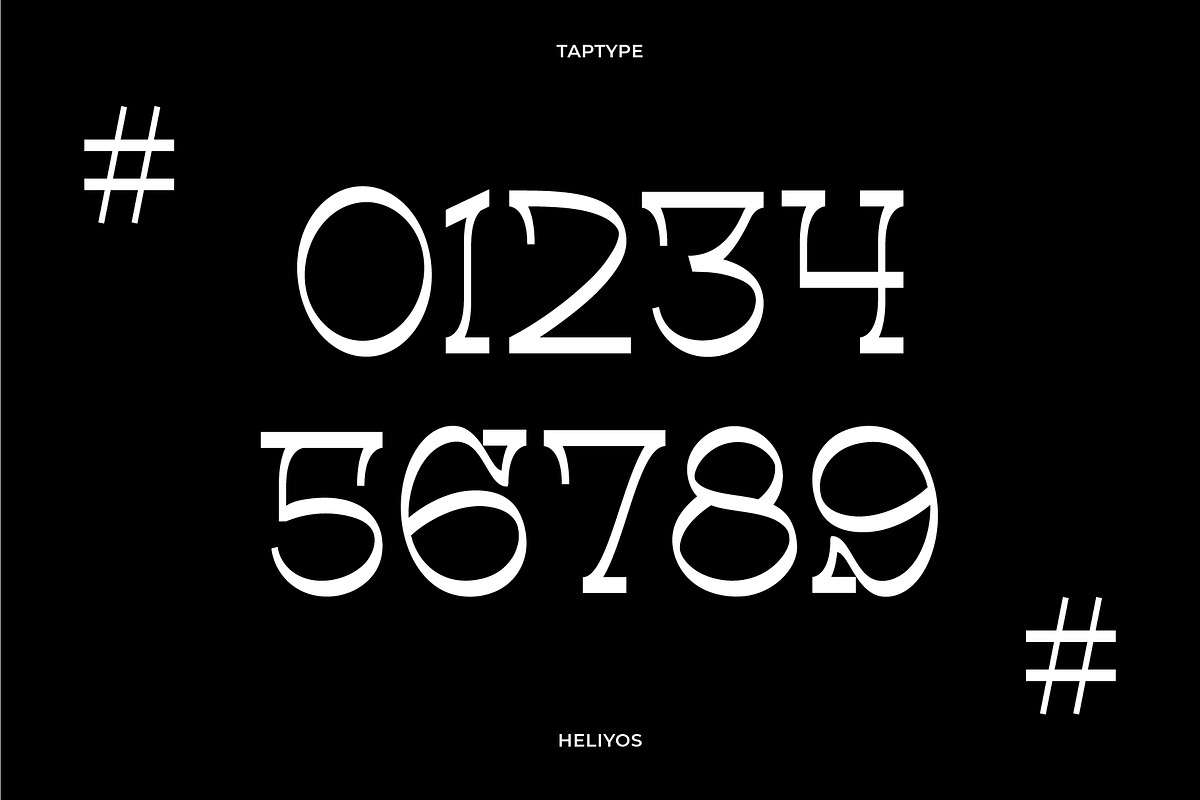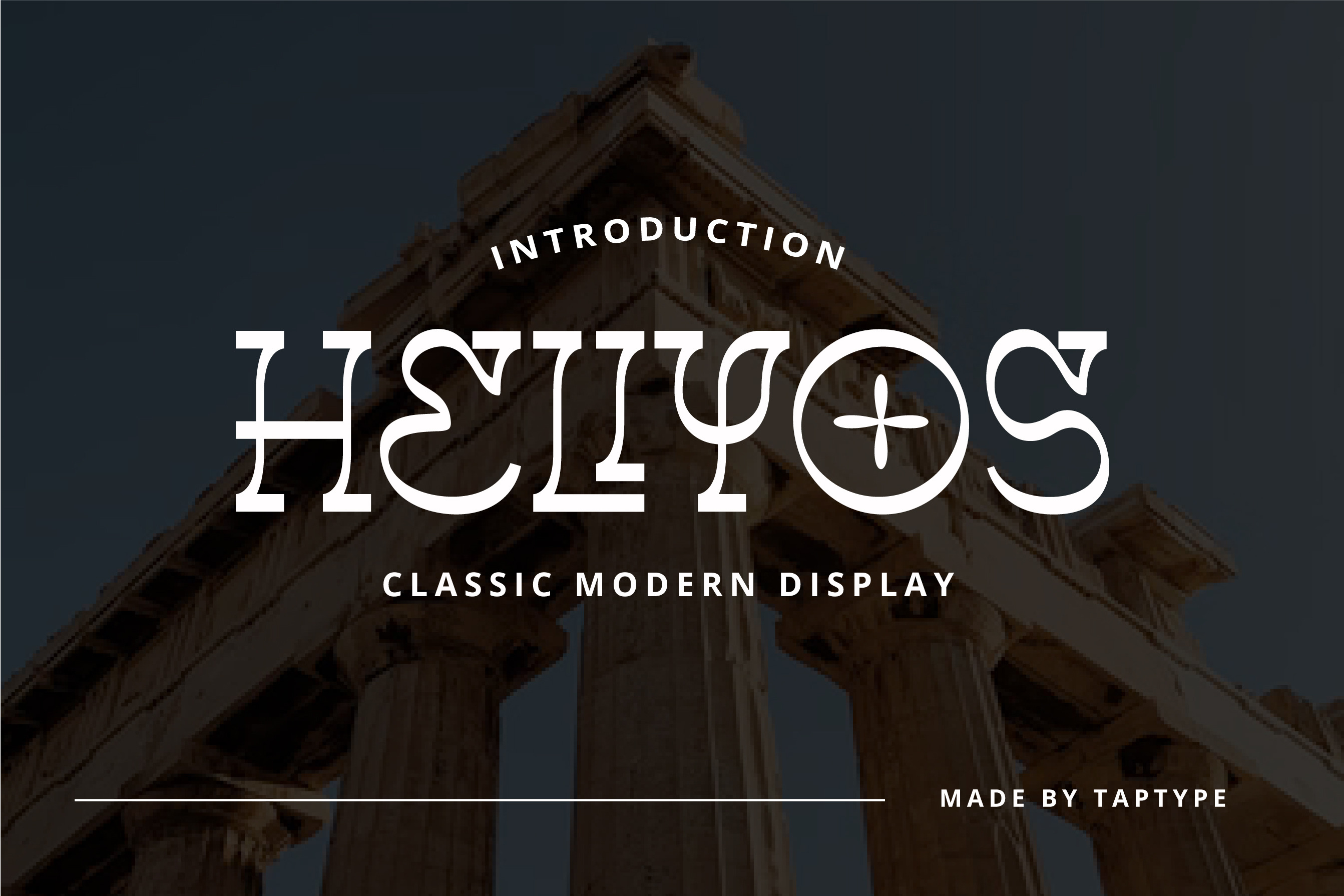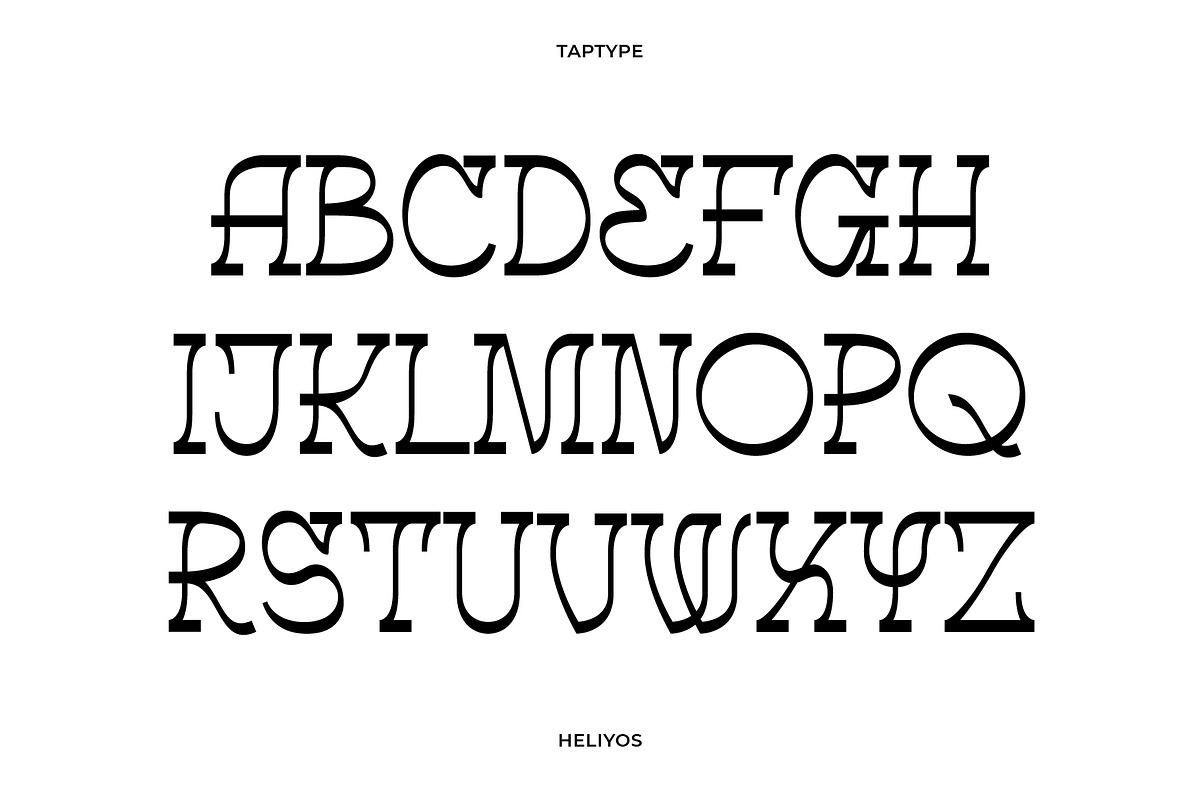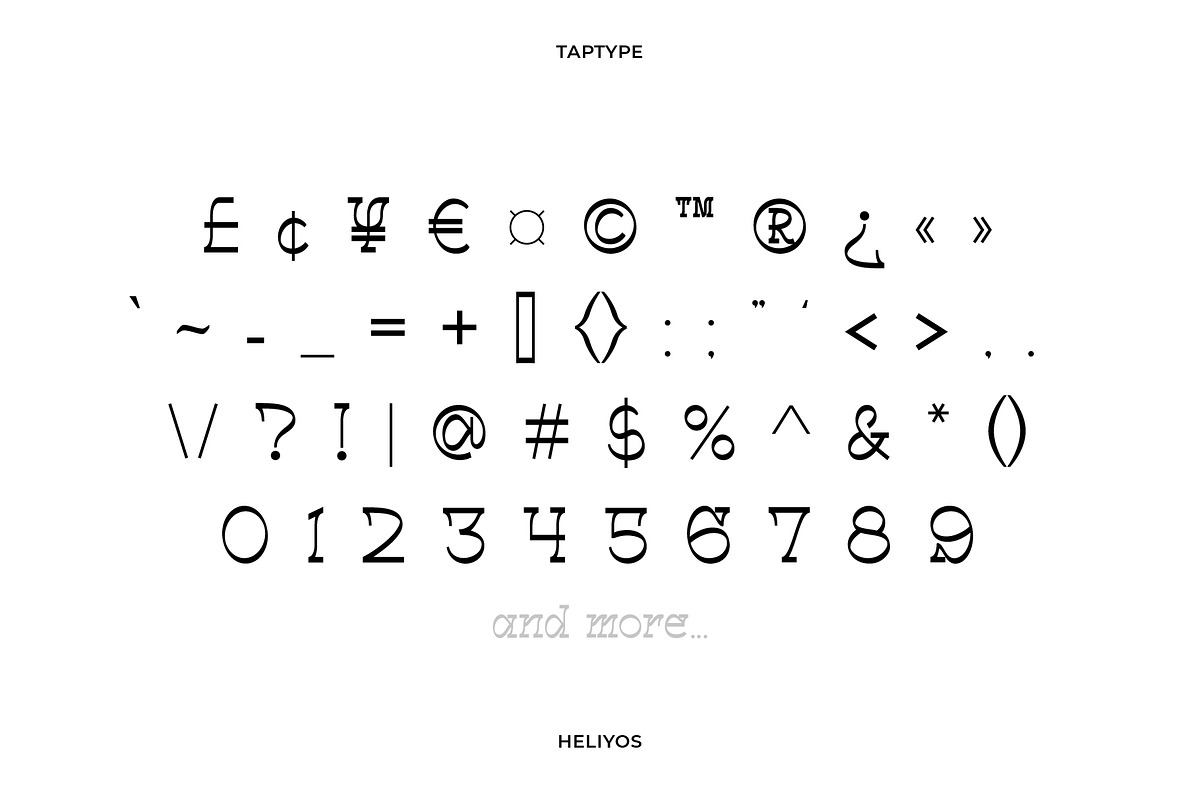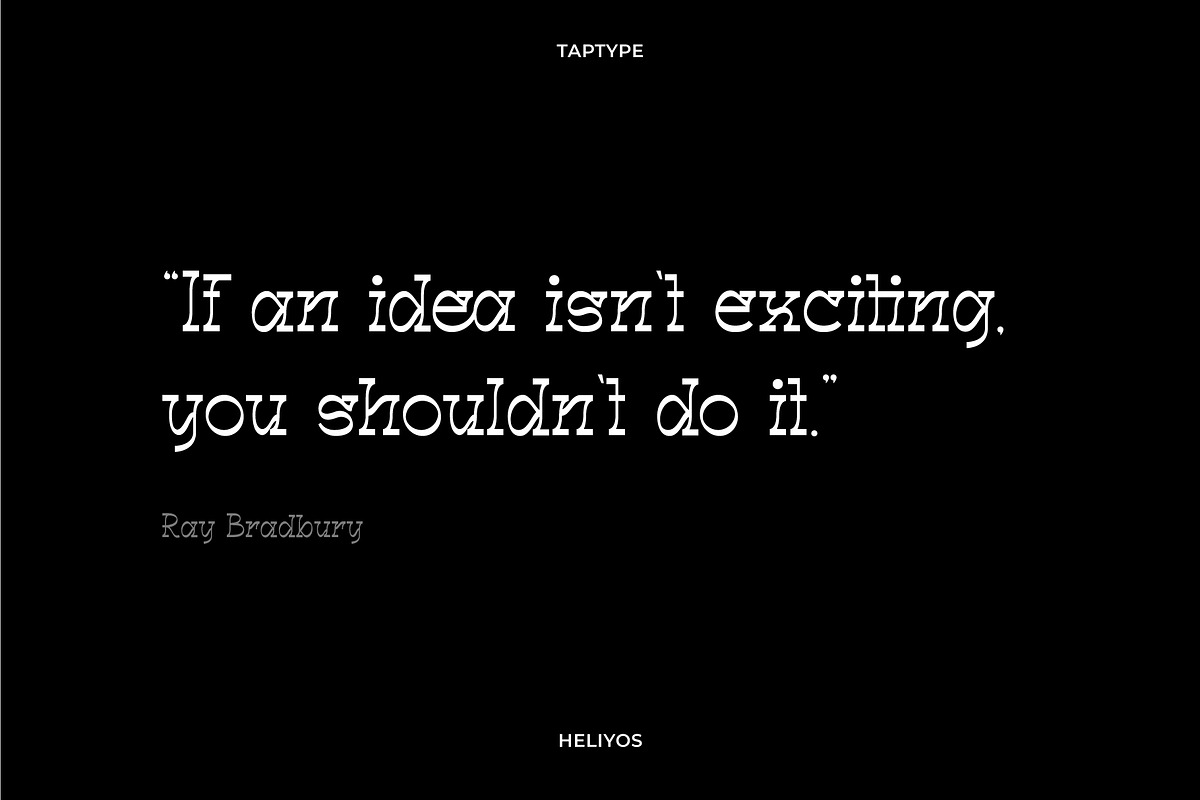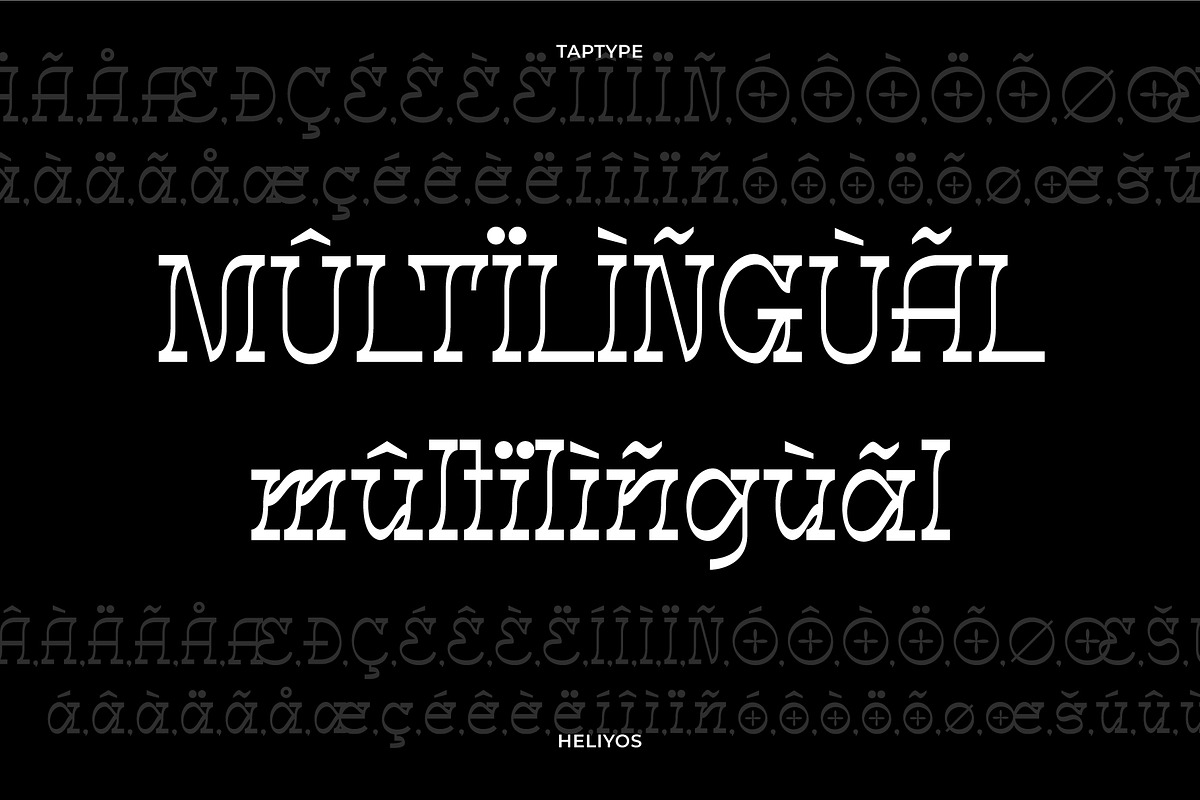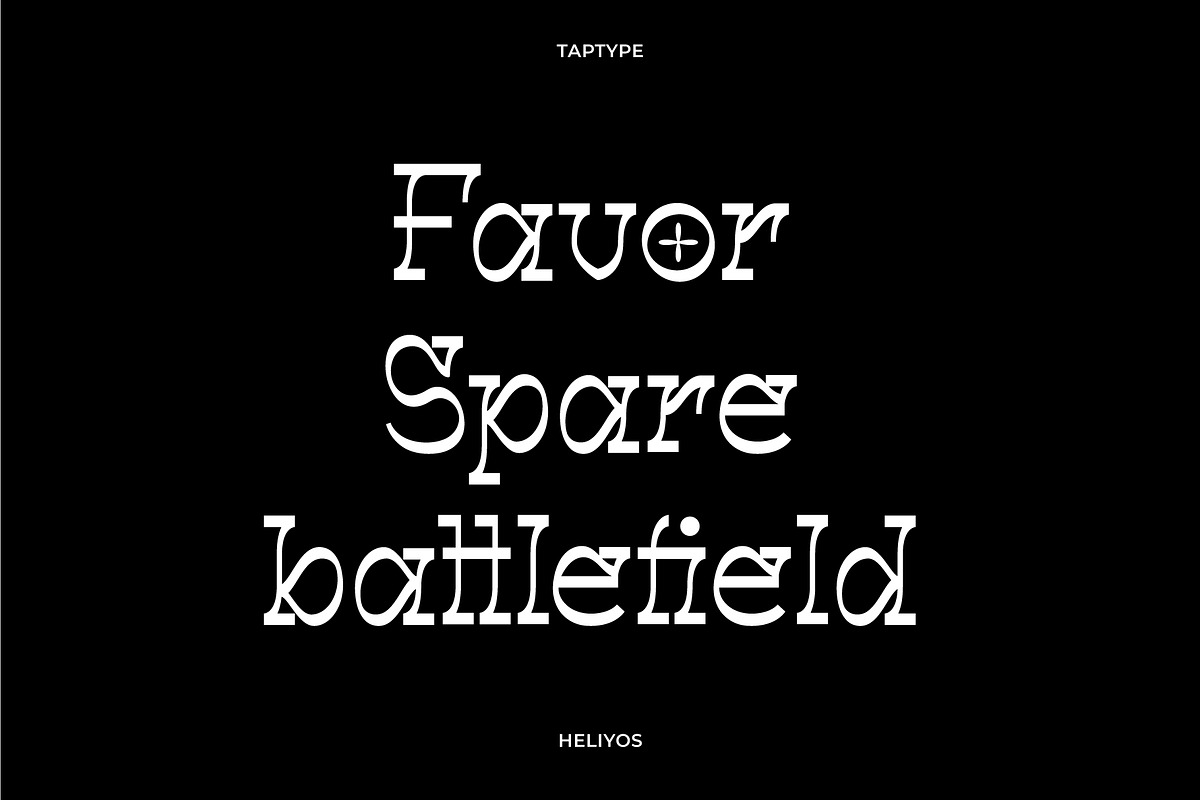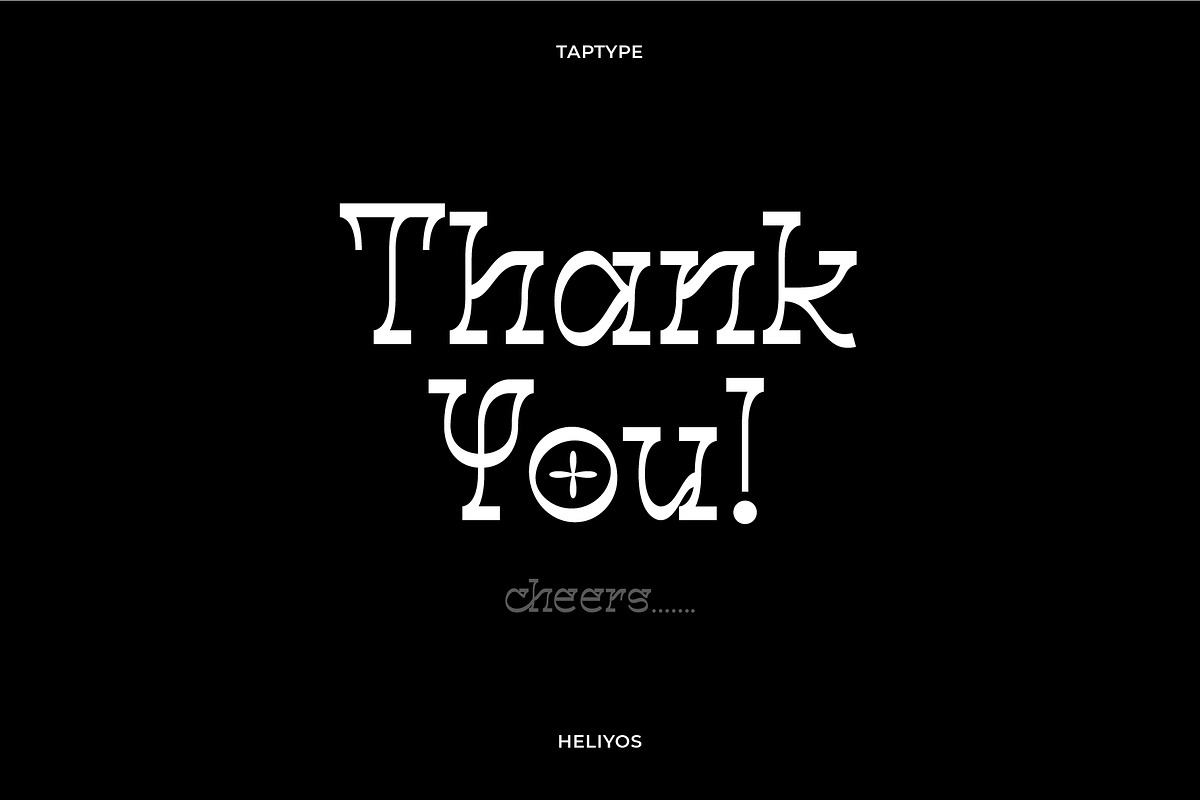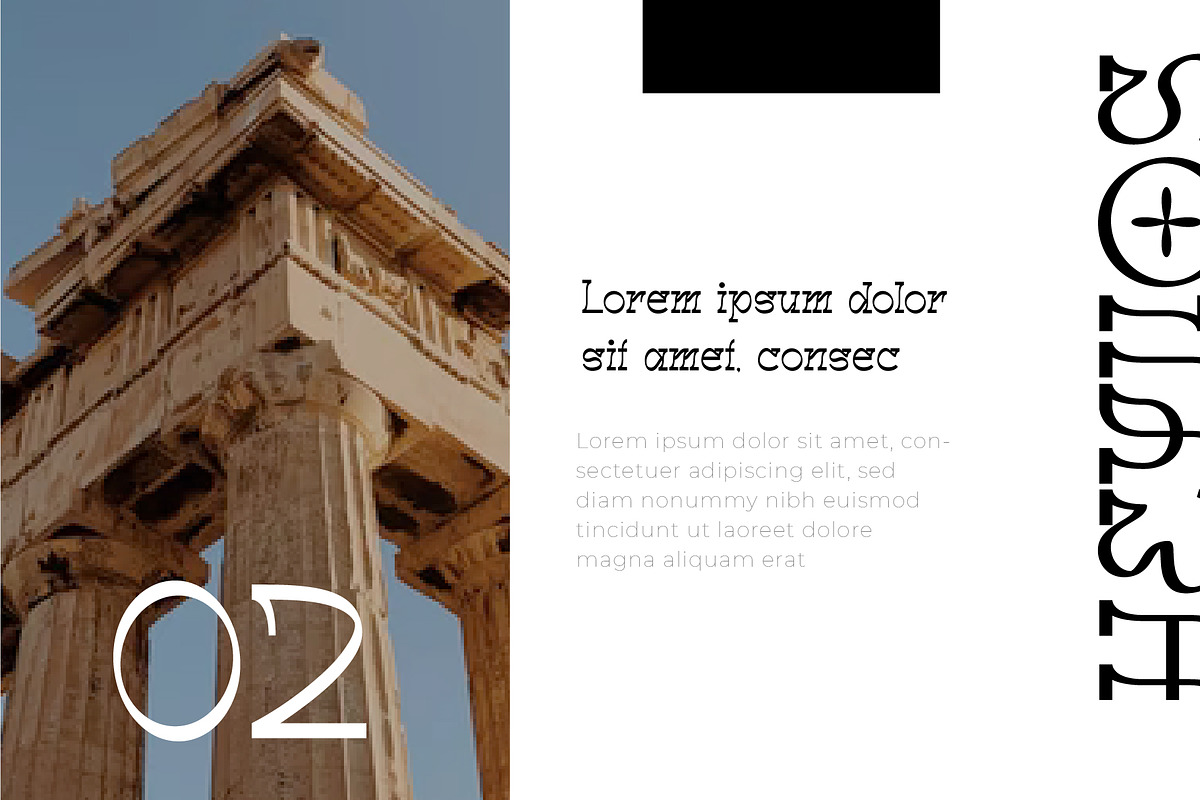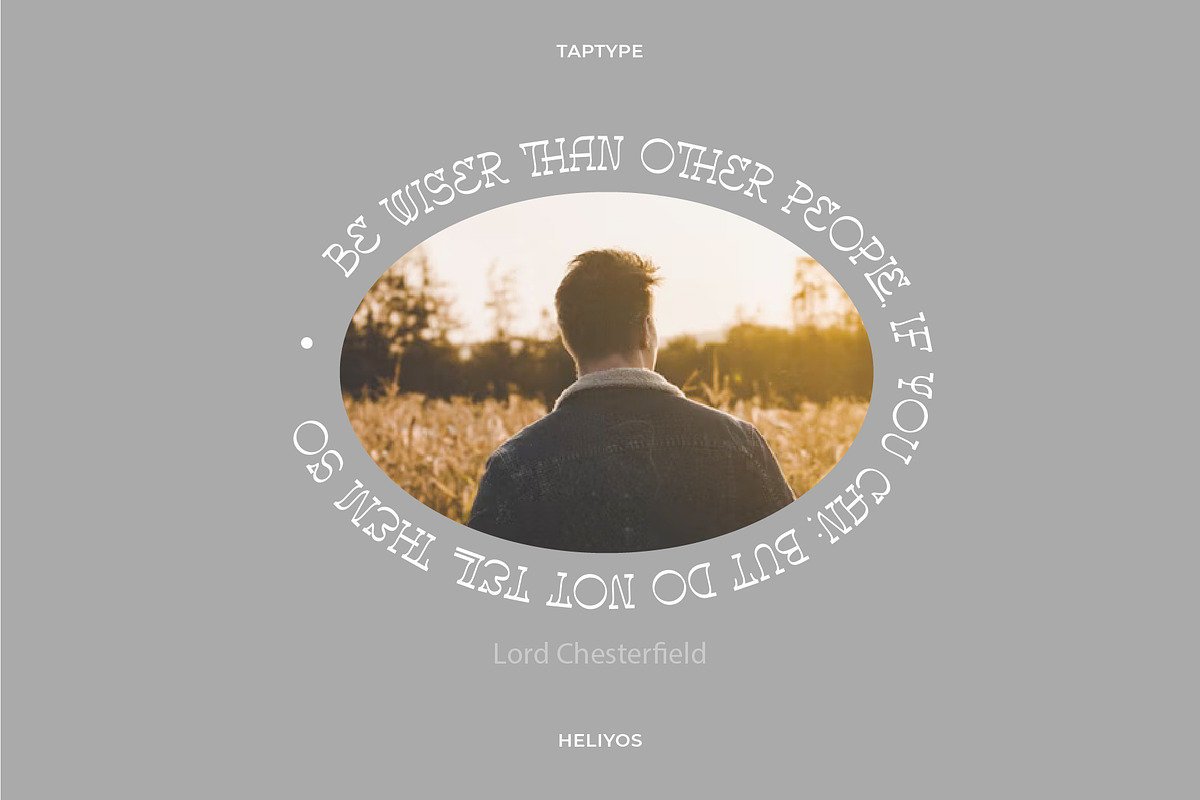
Heliyos - Slab Serif Display Font
Helios is a mixing between stylish modern with classic font with ligature Serif. Minimalist character that allowing you to easily edit the designs. It is perfect for branding, logo, wedding invites and cards, and maybe for some project.
- More than +50 Special ligatures